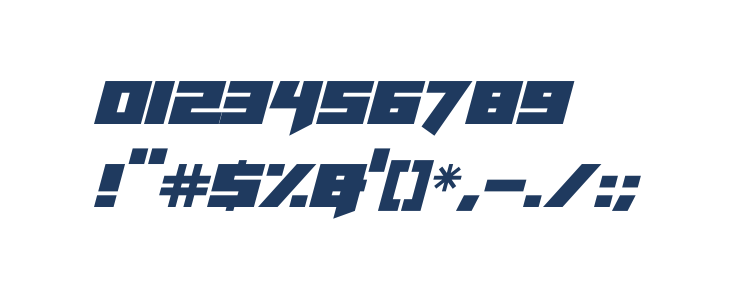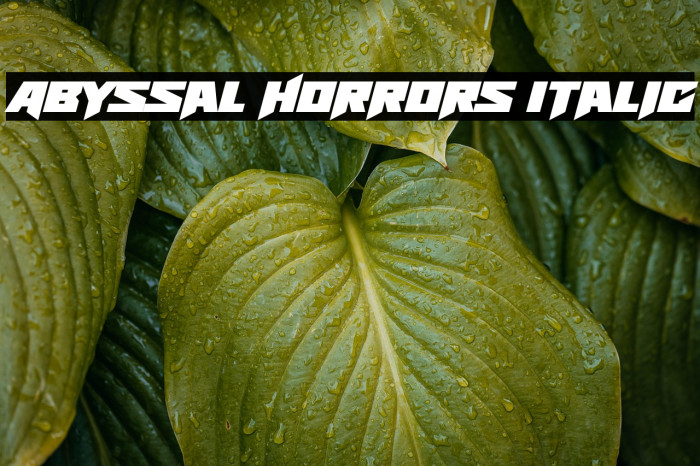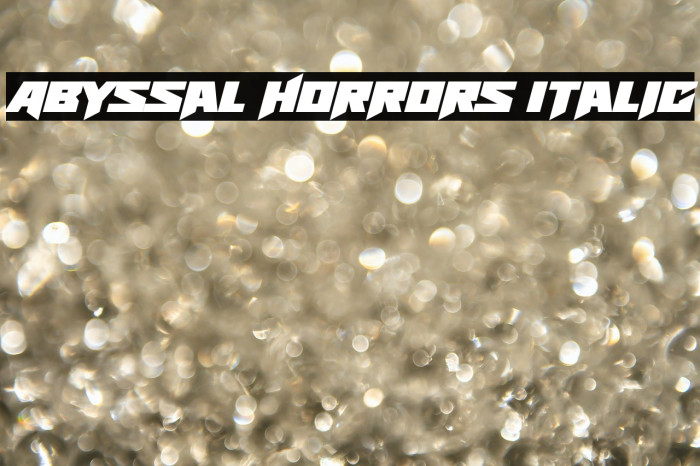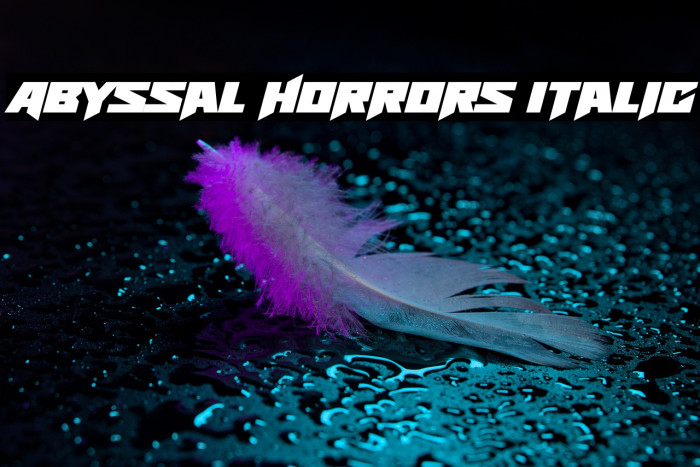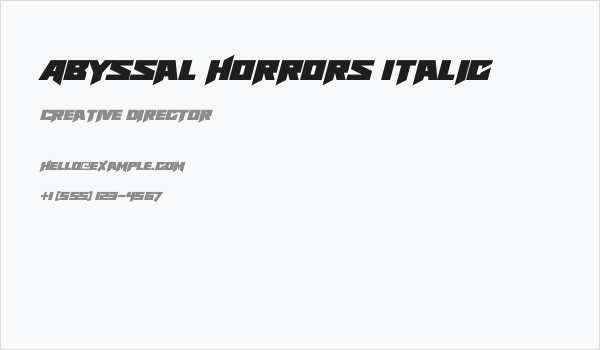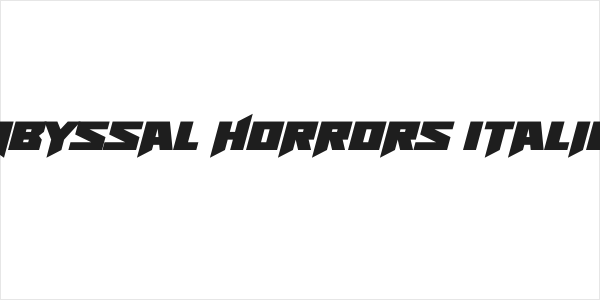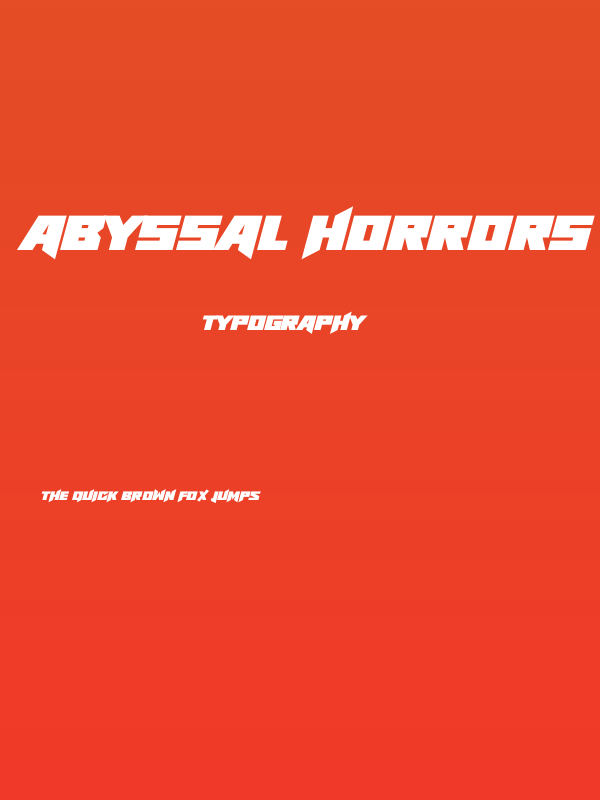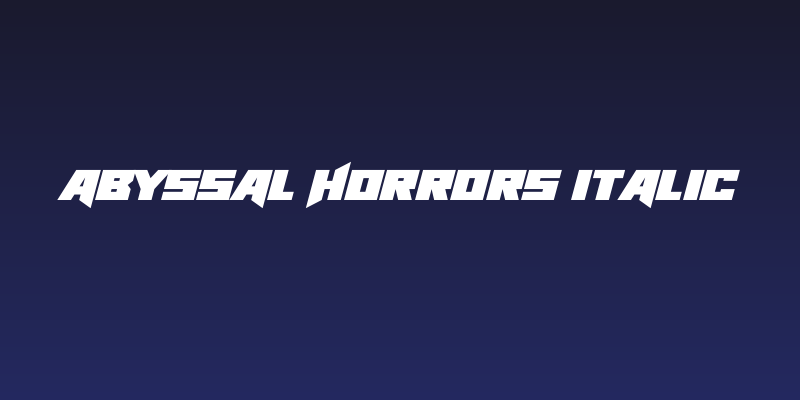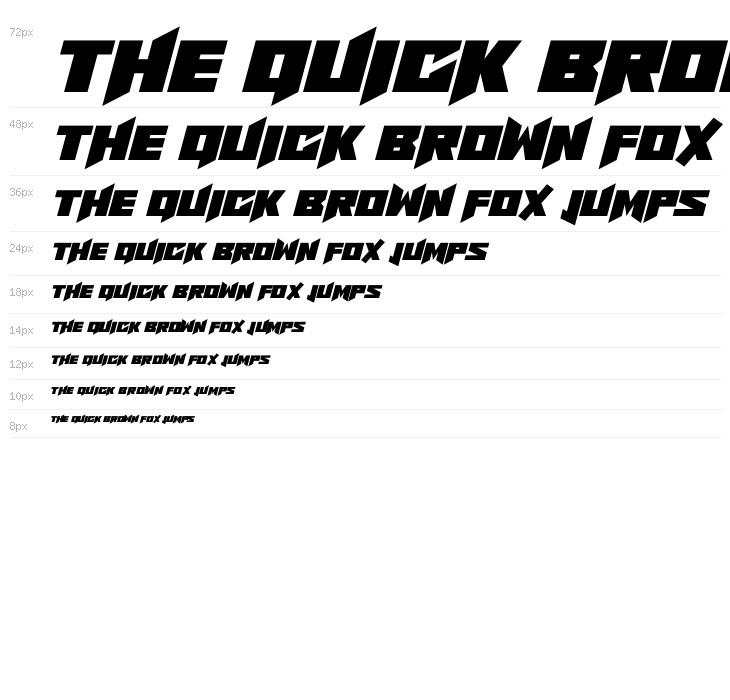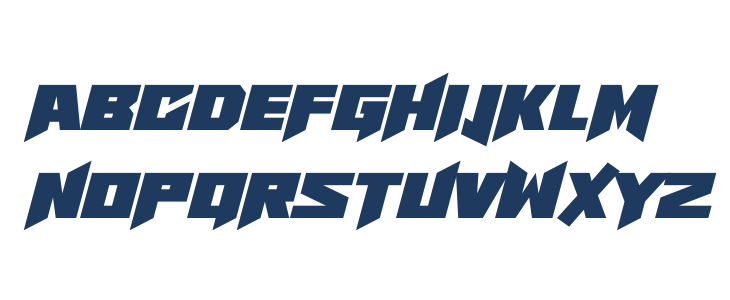
Abyssal Horrors Italic Font
Abyssal Horrors Italic Description
This font features a bold and aggressive design, characterized by sharp angles and a dynamic, italicized slant. The letters are heavily stylized with a futuristic and edgy appearance, making them stand out with their unique geometric shapes. The uppercase and lowercase letters maintain a consistent style, with the uppercase being particularly prominent and impactful. The numbers and special characters follow the same bold and angular design, ensuring a cohesive look across all elements. This font is ideal for projects that require a strong visual impact and a modern, unconventional aesthetic.
| Proposed Projects | Ideal for video game titles, movie posters, branding for tech companies, and any project needing a modern, edgy look. |